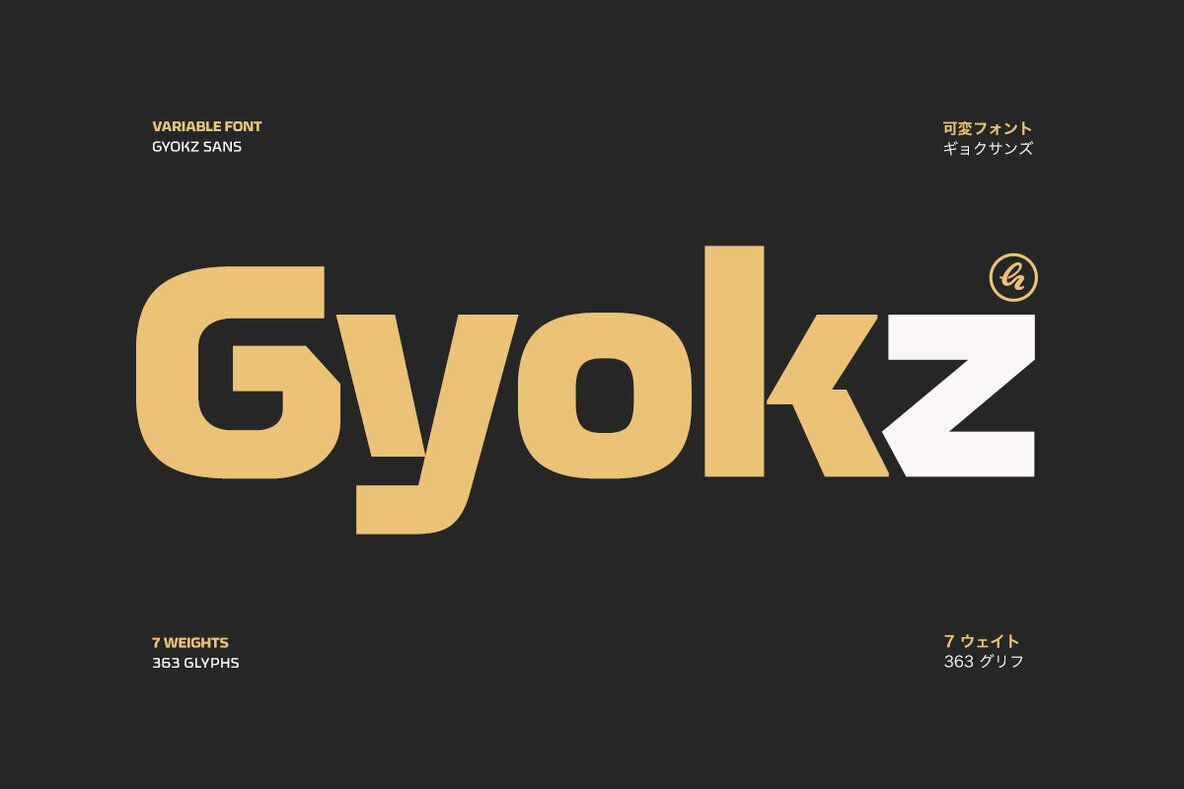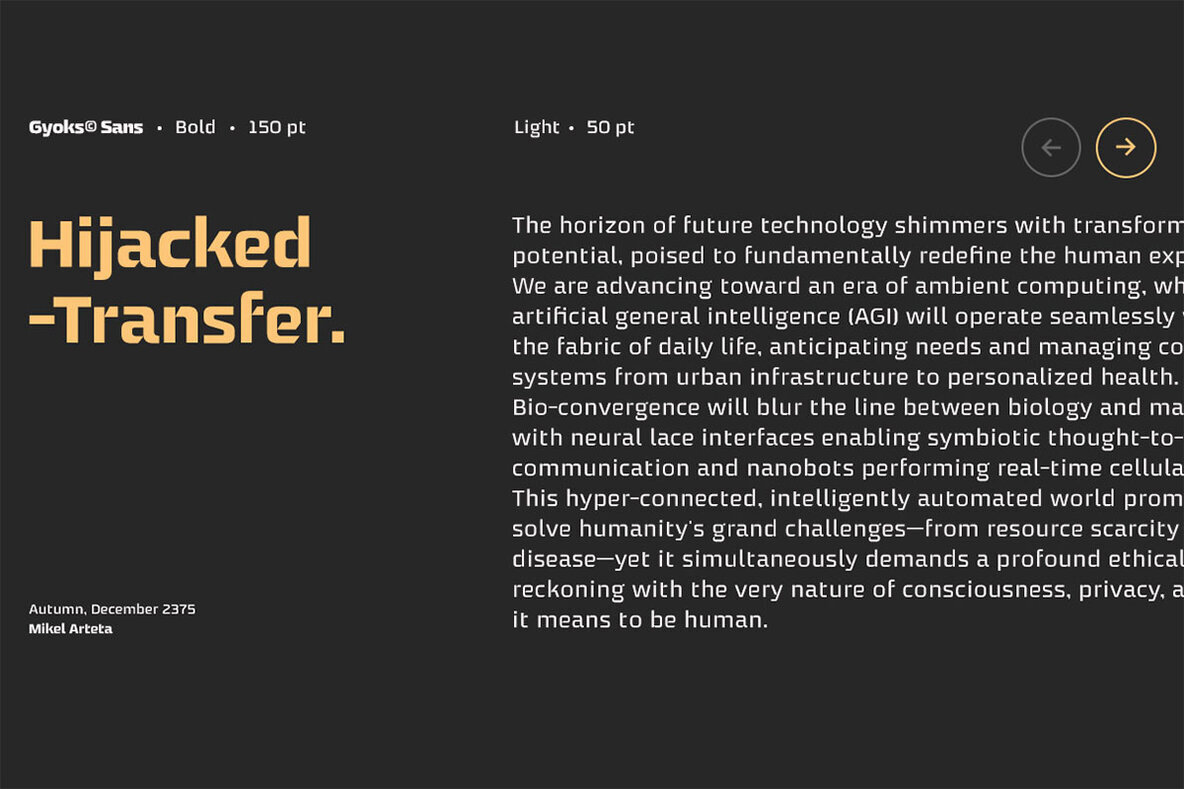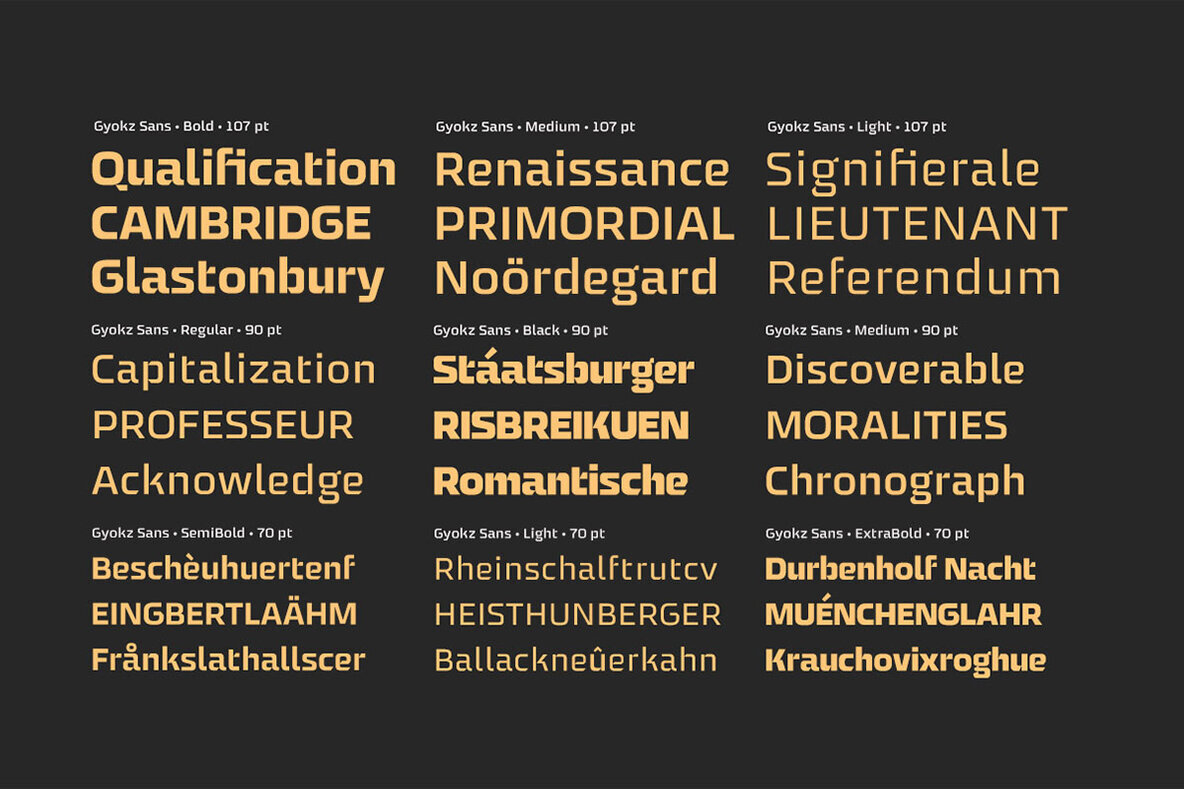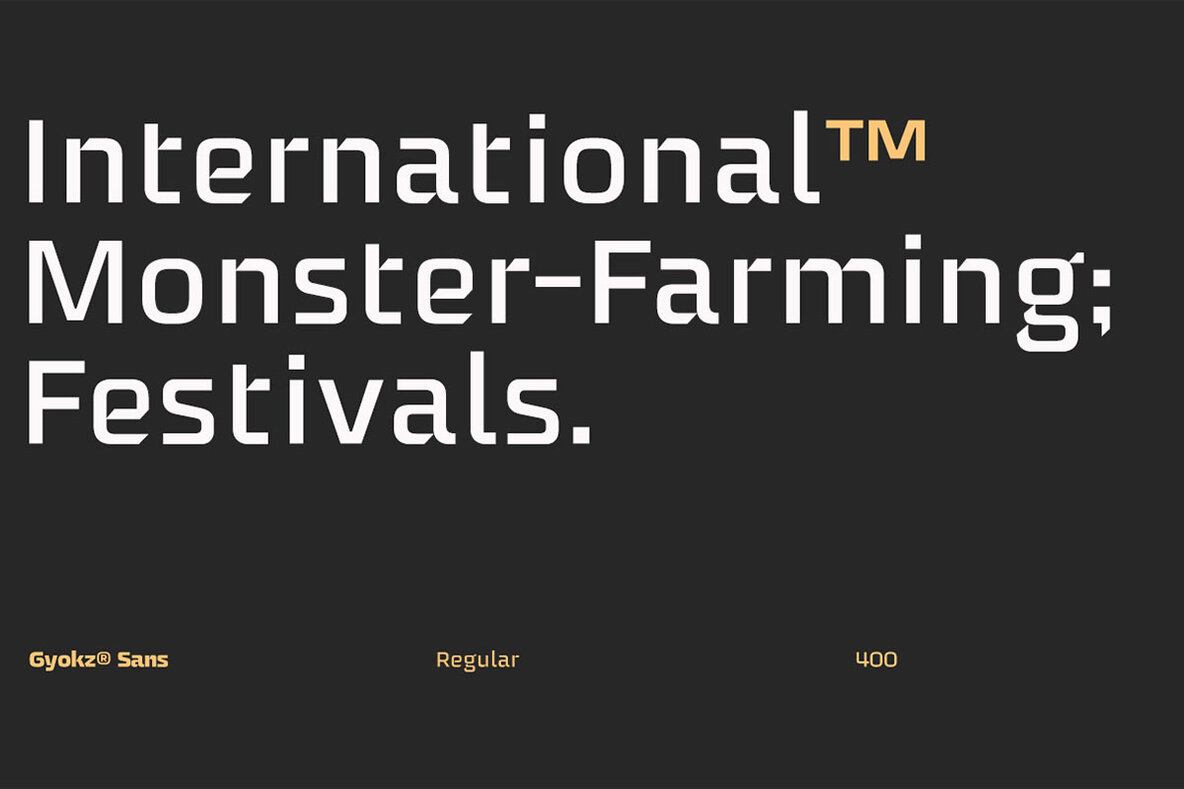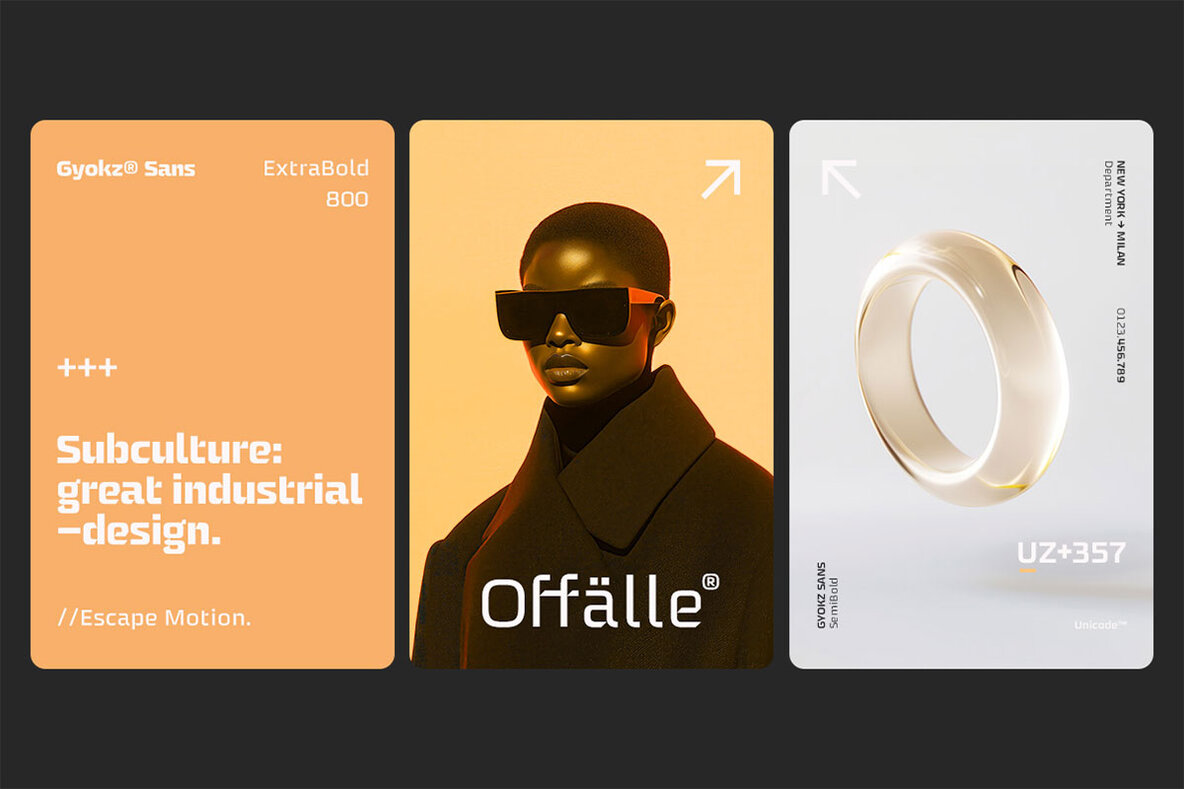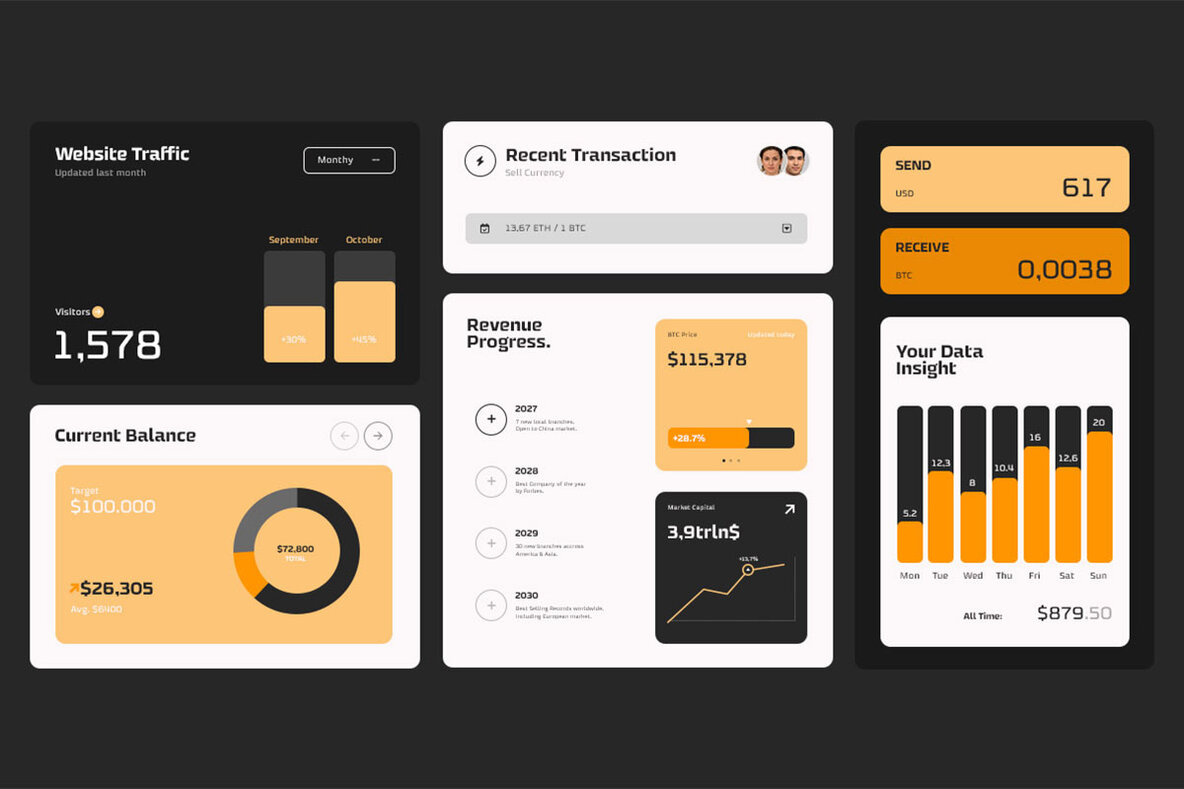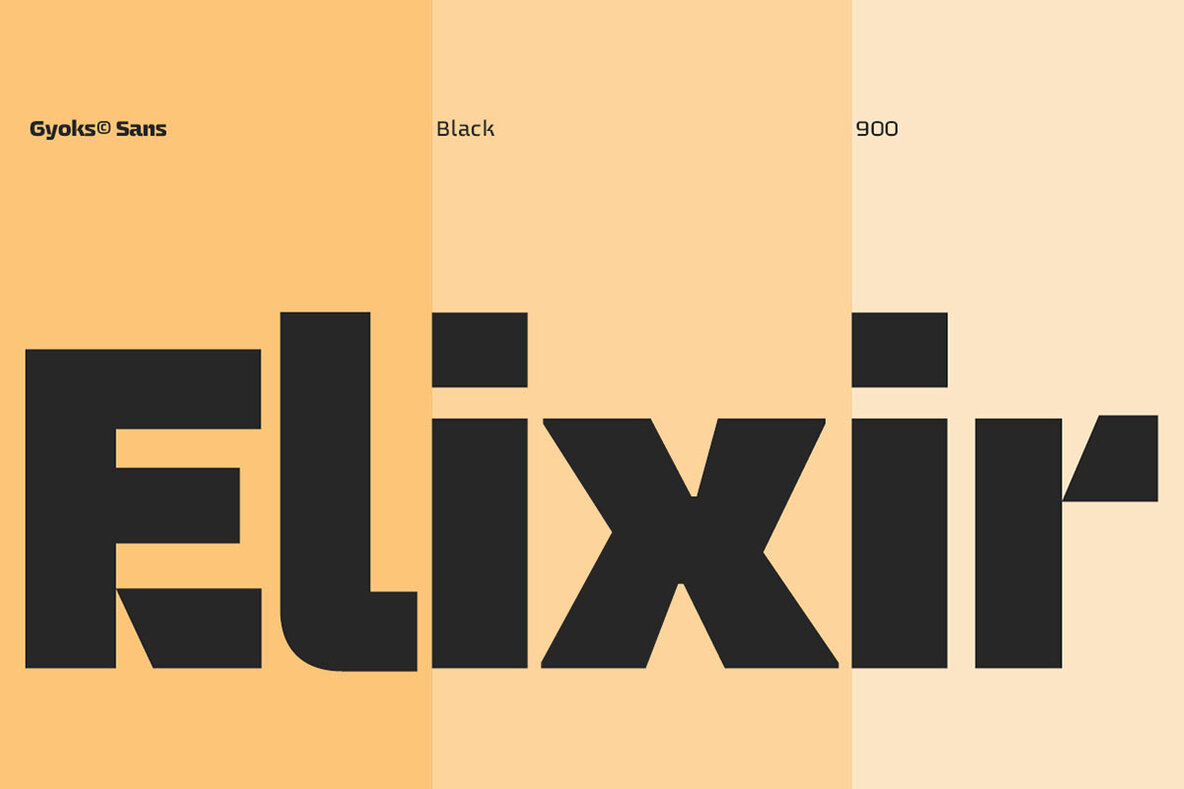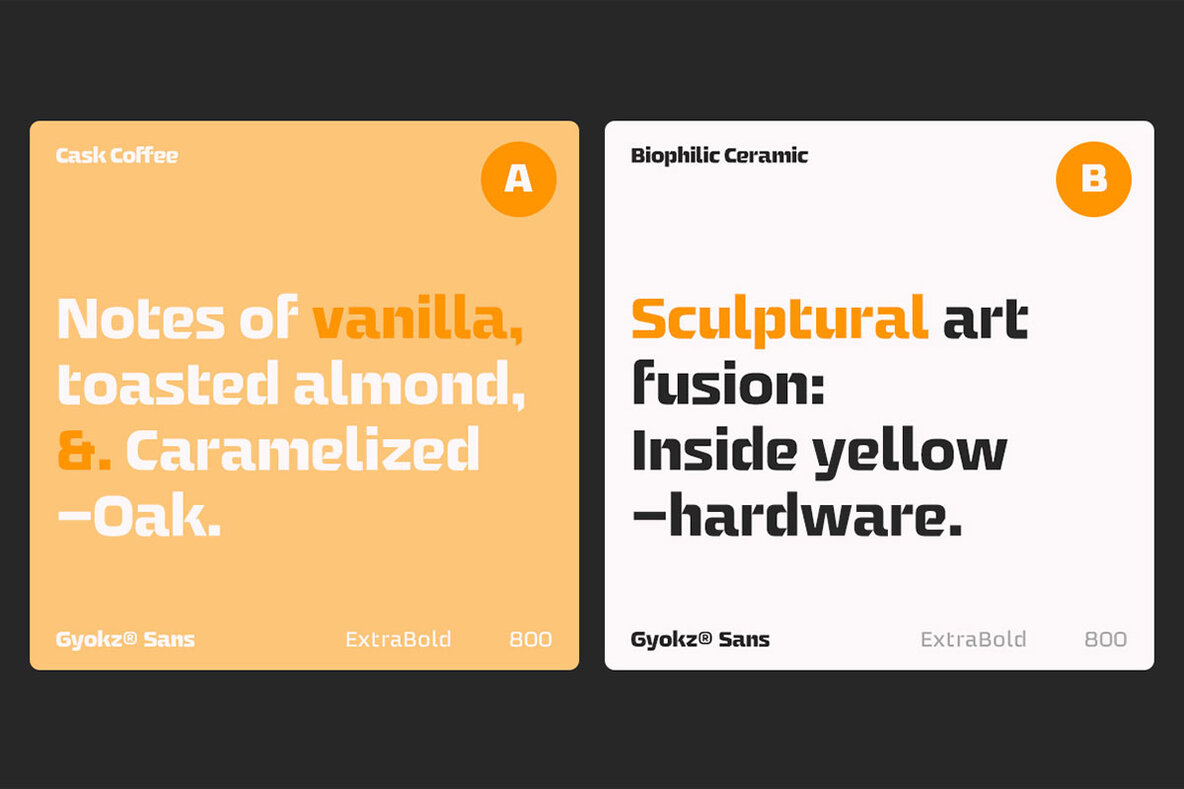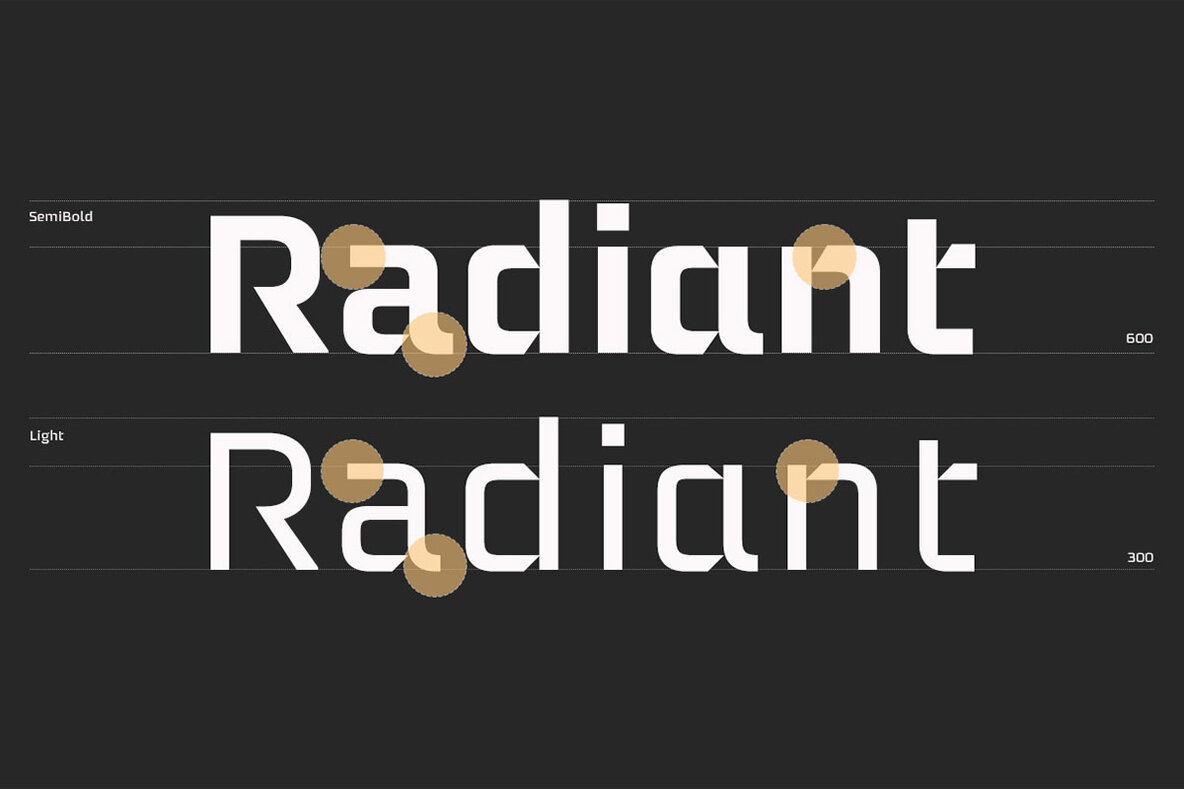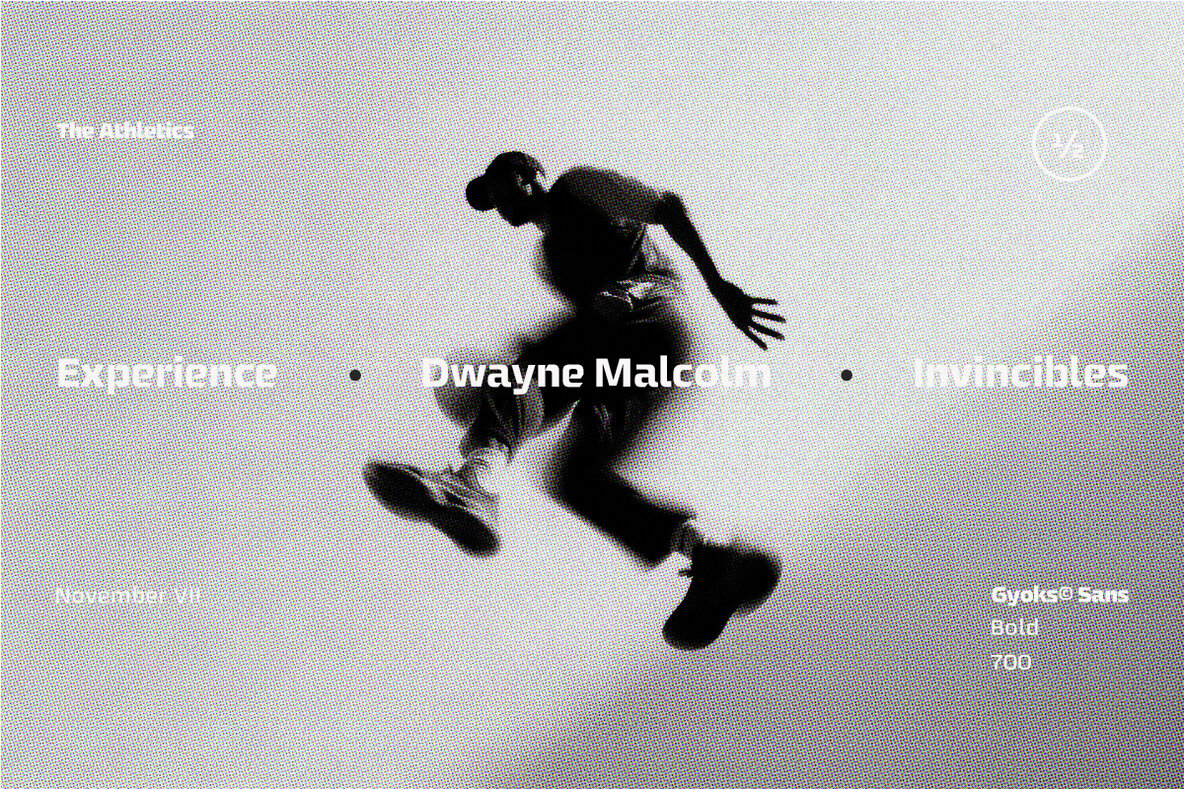
Gyokz Font
Gyokz Variable
The Gyokz typeface stands out by offering a serene yet assertive presence in the realm of sans-serif fonts. Its wide range of weights—a light, ethereal touch to a robust and deep black—empowers you to align it effortlessly with your design aspirations. Whether you're working on bold headlines or crafting meticulous body text, Gyokz ensures exceptional clarity. This font is meticulously designed with an extensive character set, maintaining both beauty and legibility across various languages. It’s the perfect choice for those who appreciate subtle sophistication in their projects. Gyokz infuses your design with an understated elegance and contemporary grace, ideal for any creative endeavor.Gyokz Sans-Serif Typeface: Quiet Elegance
Versatile and Sophisticated